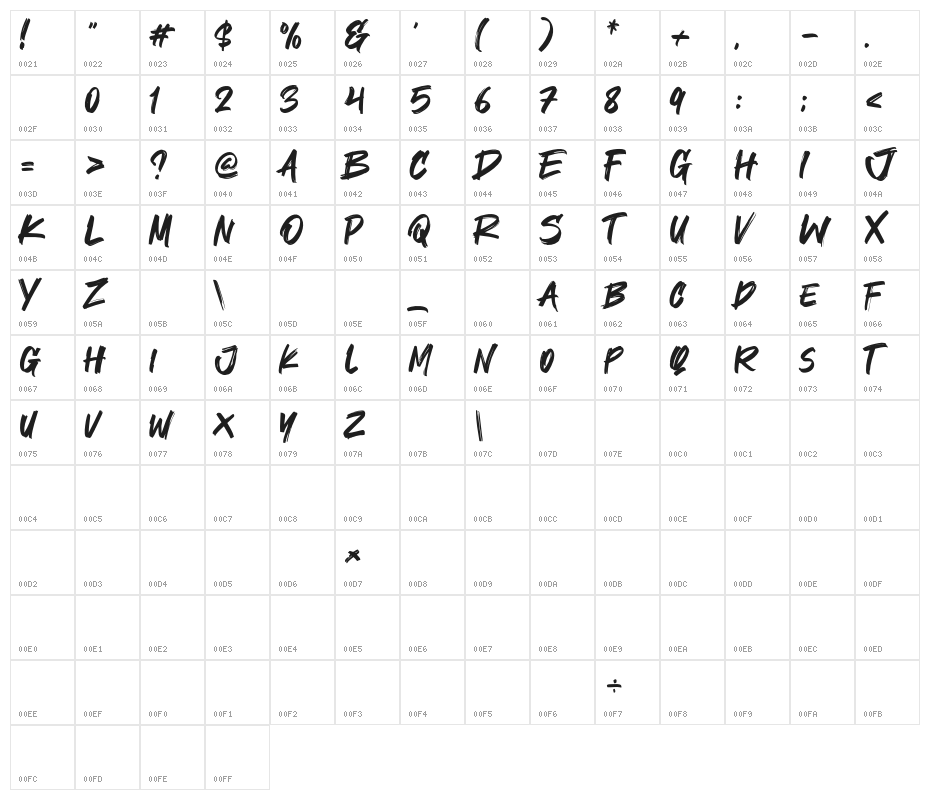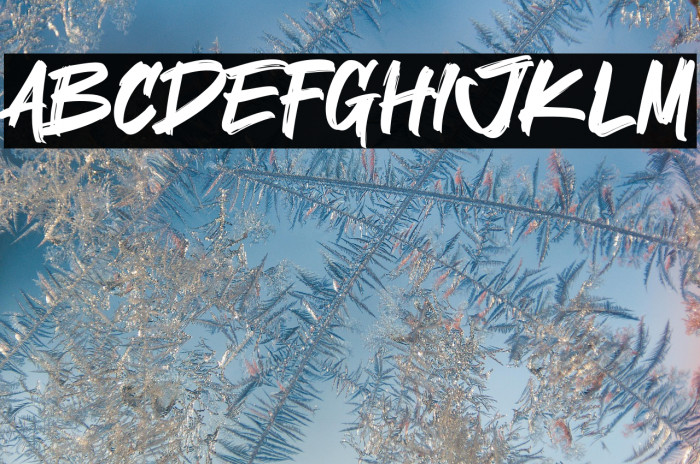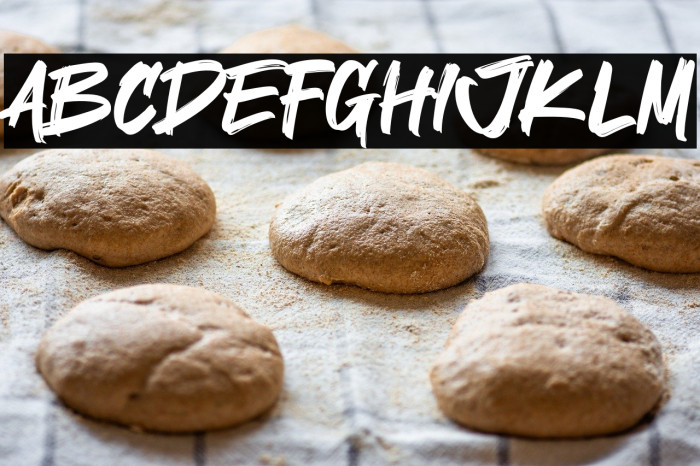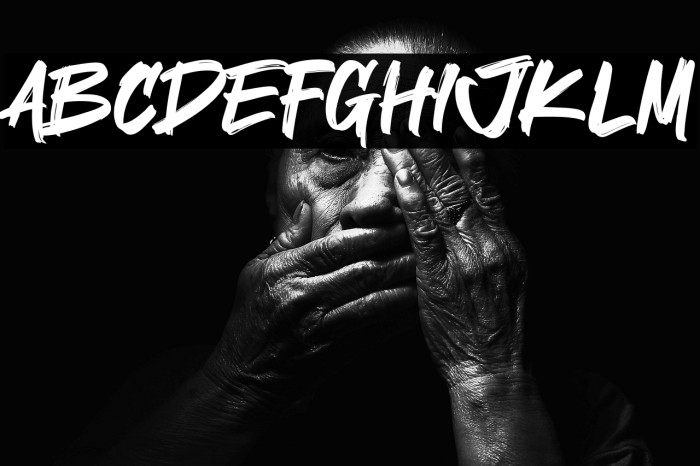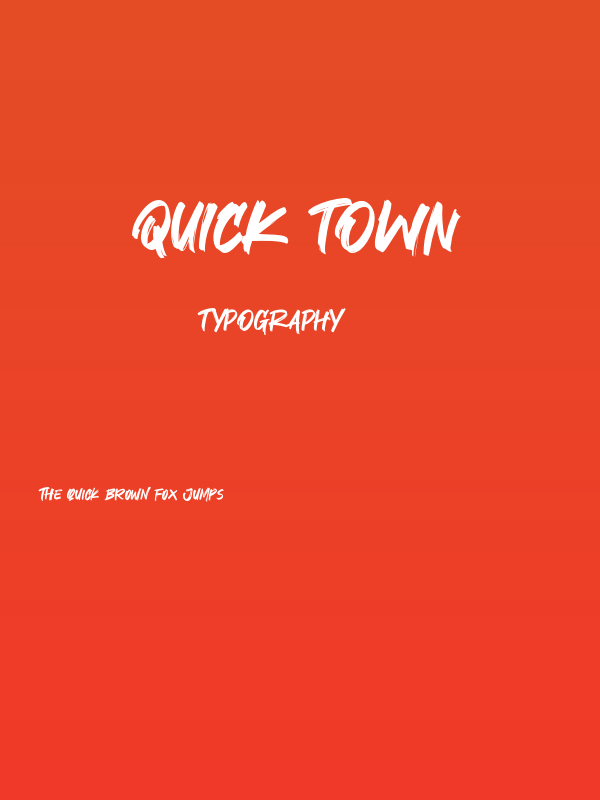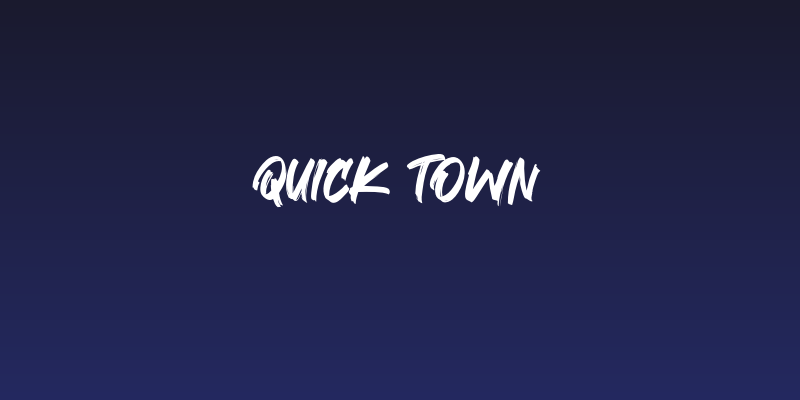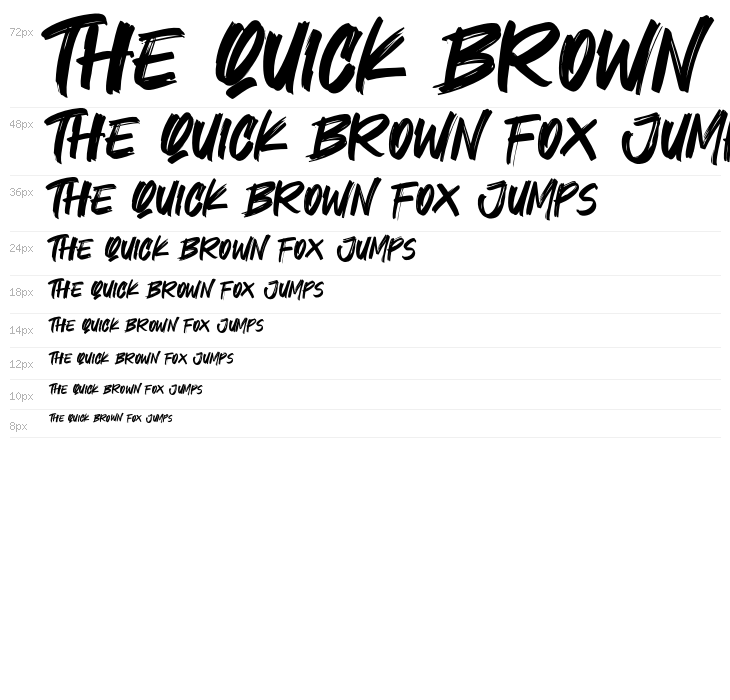
Quick Town Font
Quick Town Description
This font features a bold, energetic style with brush-like strokes that convey a sense of movement and dynamism. The characters are slightly slanted, adding to the impression of speed and fluidity. The uppercase and lowercase letters maintain a consistent style, with a rough, hand-painted appearance. The numbers and special characters follow the same aesthetic, ensuring a cohesive look across all text elements. The font's high contrast between thick and thin strokes enhances its boldness, making it stand out in any design.
| Overall Style | Modern, Artistic |
| Proposed Projects | Ideal for projects needing a bold, artistic touch, such as posters, logos, branding materials, and social media graphics. |